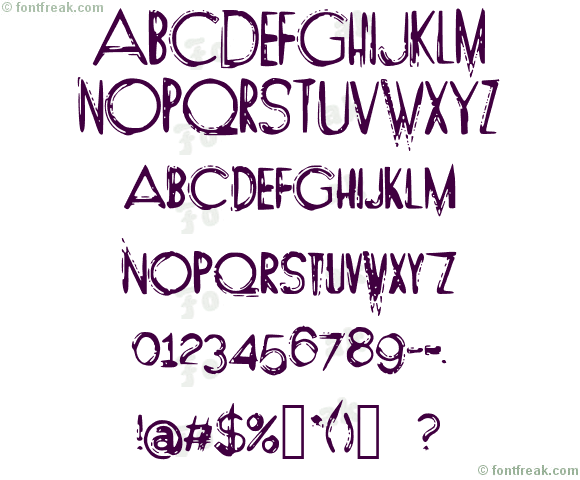
LongLeg
LongLeg, crafted by Leonard Posavec and available for free download, is a unique display font that effortlessly captures attention with its distinctive character. This font exhibits a playful yet sophisticated style, making it a standout choice for various creative projects. With its irregular, elongated letterforms, LongLeg combines elements of both whimsy and elegance, perfect for designers seeking to infuse a sense of personality into their work.
Visually, LongLeg features a medium stroke weight that balances boldness and readability. The contrast is subtle, ensuring that the text remains legible while still showcasing its artistic flair. The spacing between letters is generous, allowing for a relaxed flow that enhances its visual appeal. The decorative elements inherent in LongLeg, such as its quirky ascenders and descenders, add a layer of charm, making it suitable for eye-catching headlines and titles.
Ideal use cases for LongLeg include wedding invitations, where its fanciful design can set the tone for a romantic occasion. It also shines in creative projects like movie posters, where it can convey a sense of intrigue and drama. Additionally, LongLeg is well-suited for restaurant menus, adding a touch of flair to food descriptions, and it can elevate branding for small businesses looking to make a memorable impression.